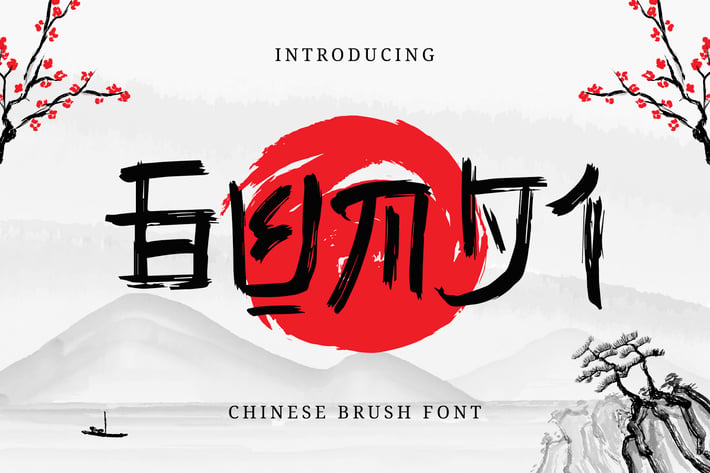
Gunji – Chinese Brush Font
Gunji is an awesome chinese inspired display font. It has a great readability and will add a striking touch to any design!
It will look awesome on any design, print, or restaurant brand!